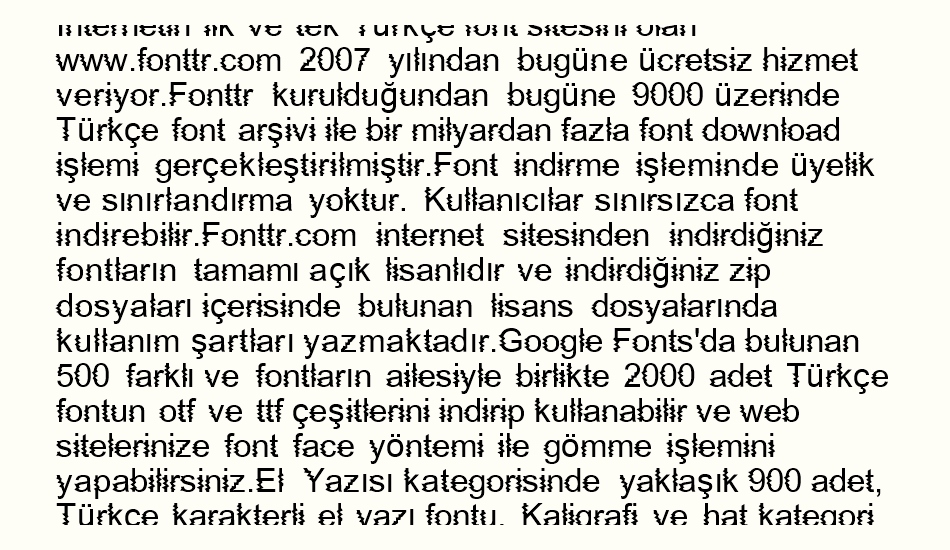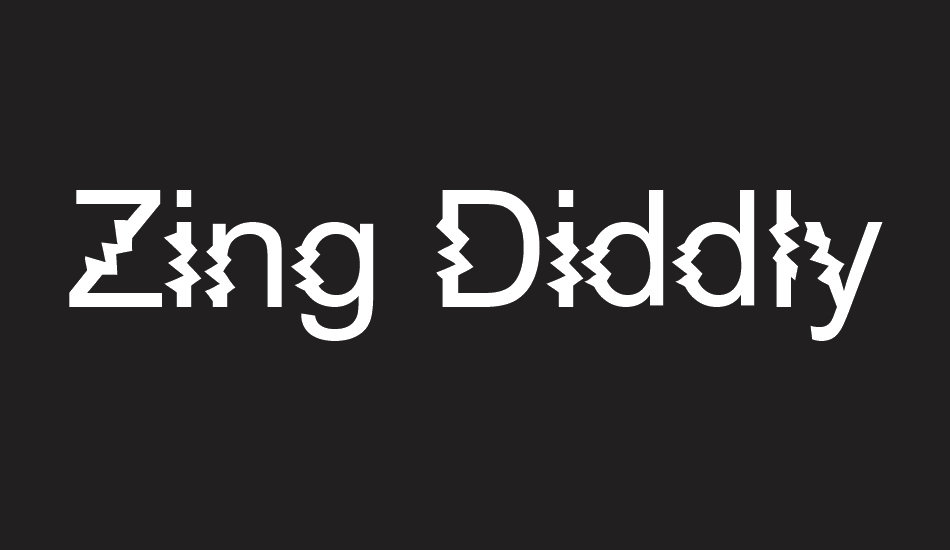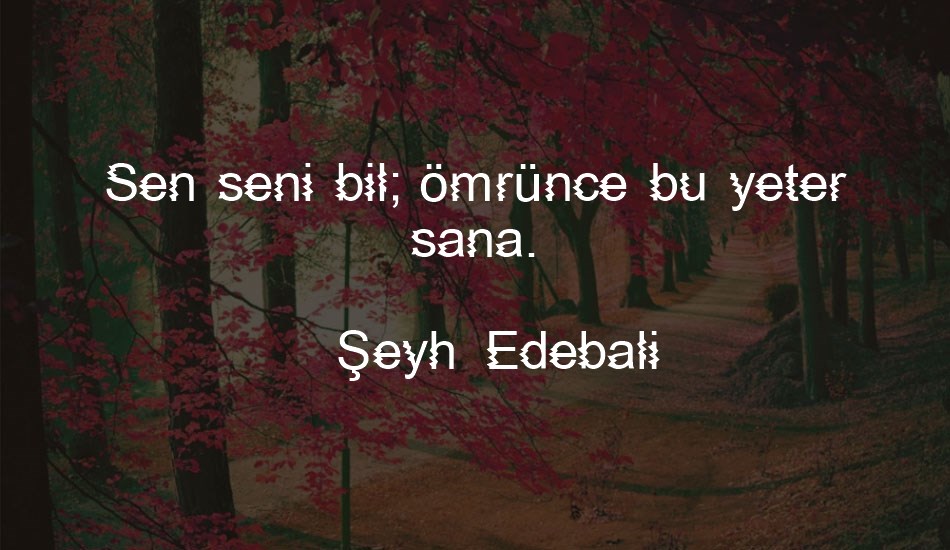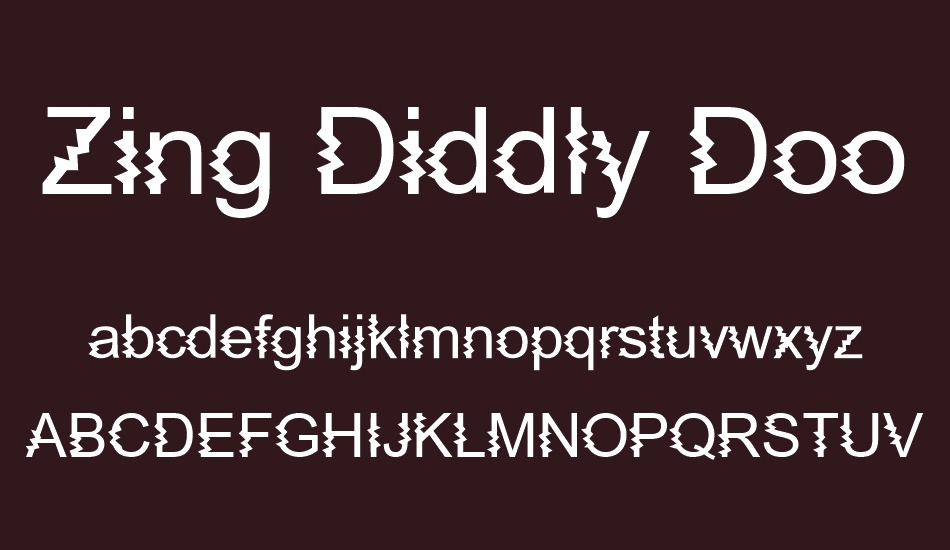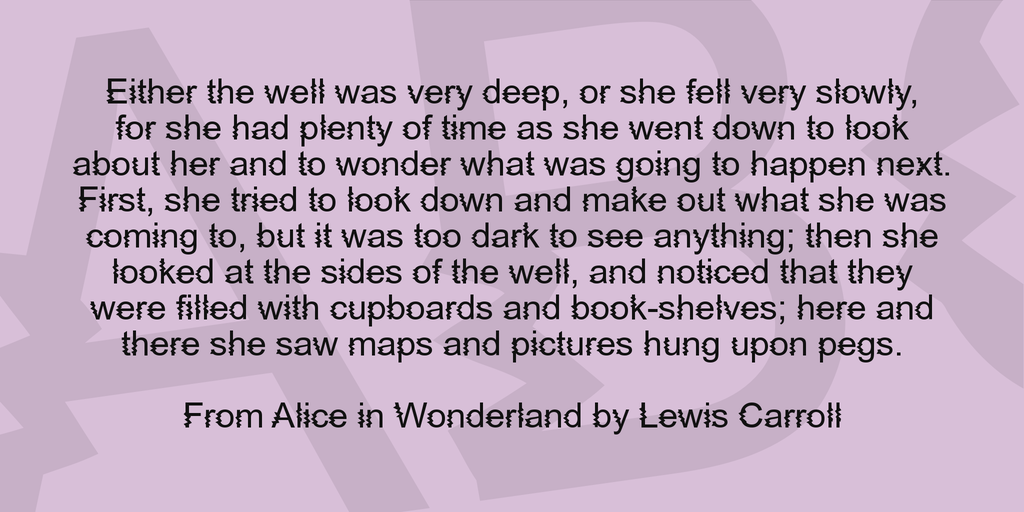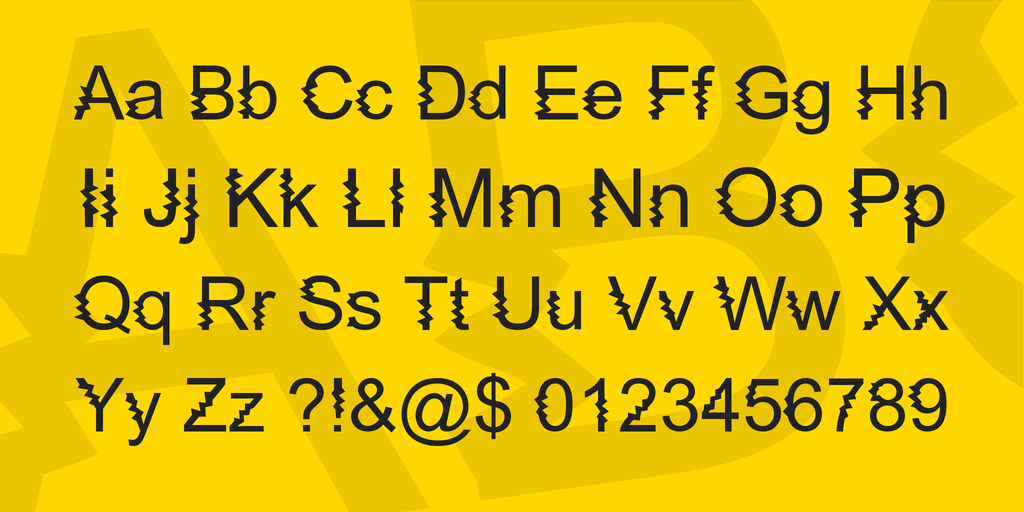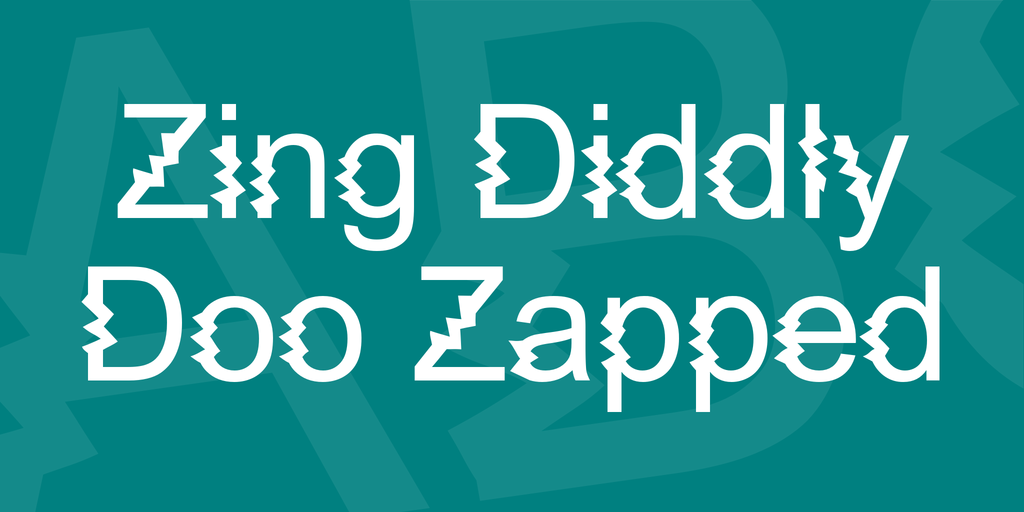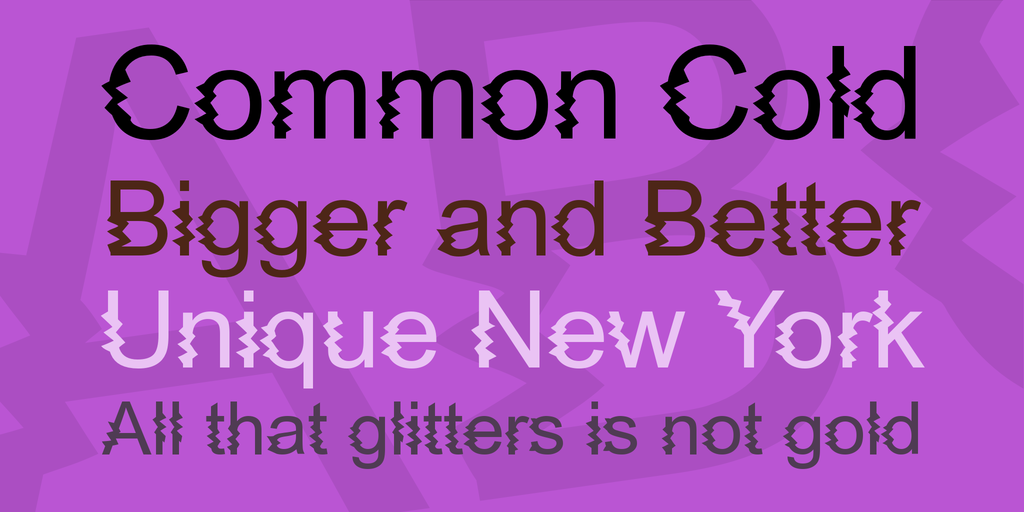
Zing Diddly Doo Zapped font
Zing Diddly Doo Zapped
This is an electrocuted version of Zing Diddly Doo, where all lowercase letters also have the squiggly line. Most numbers have it too, and some symbols.